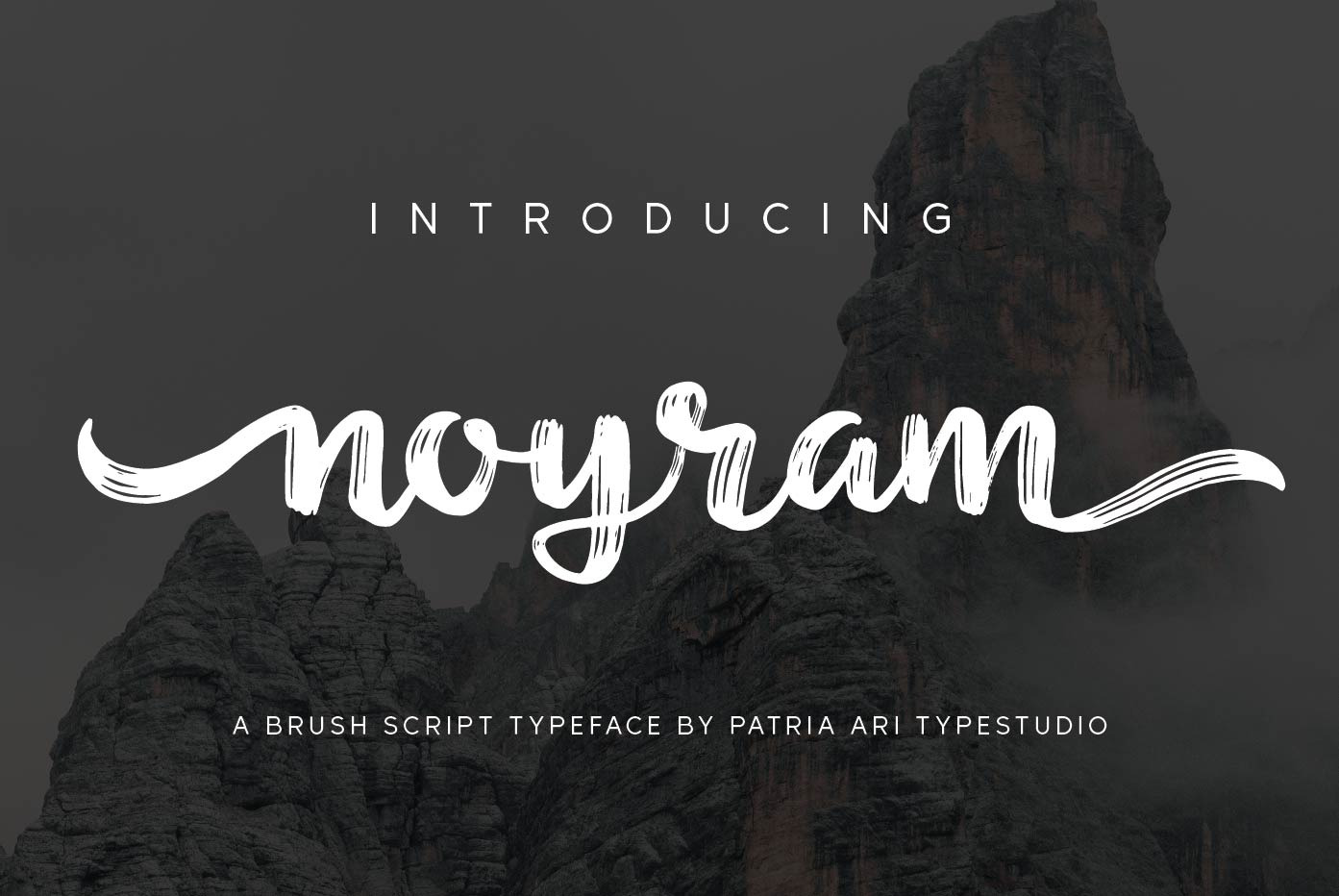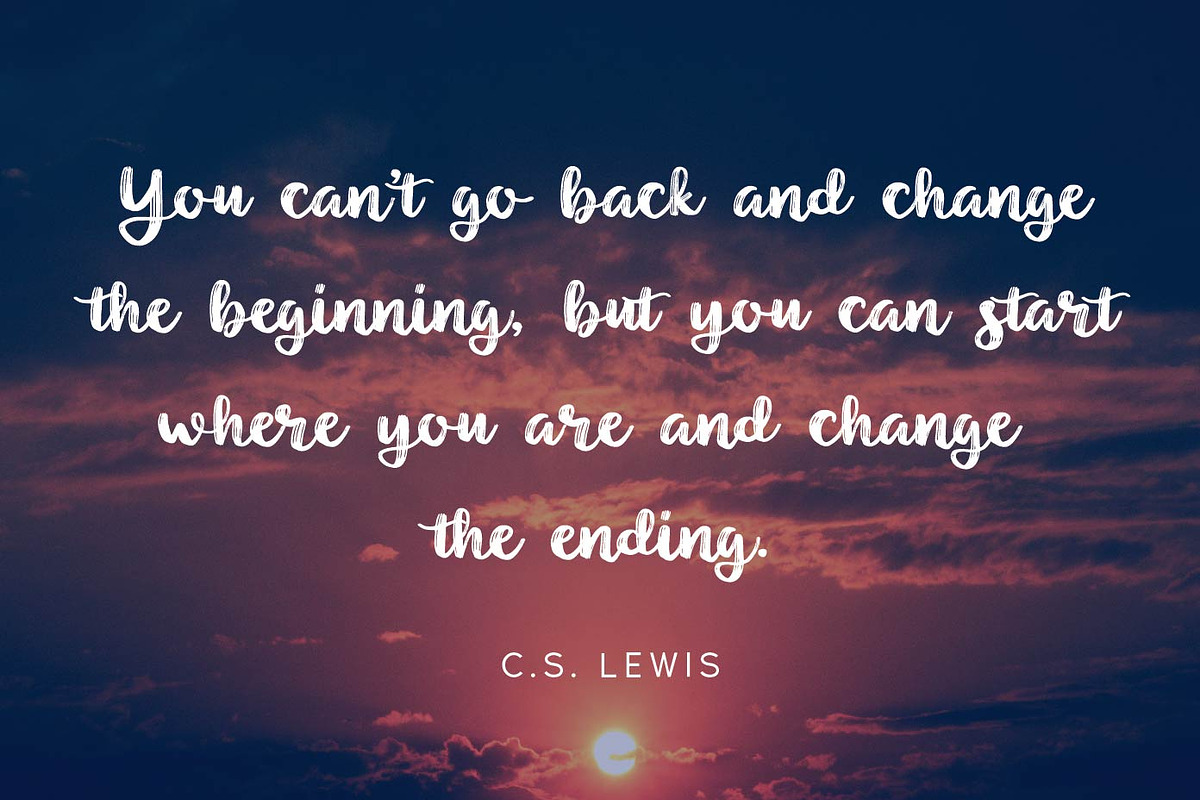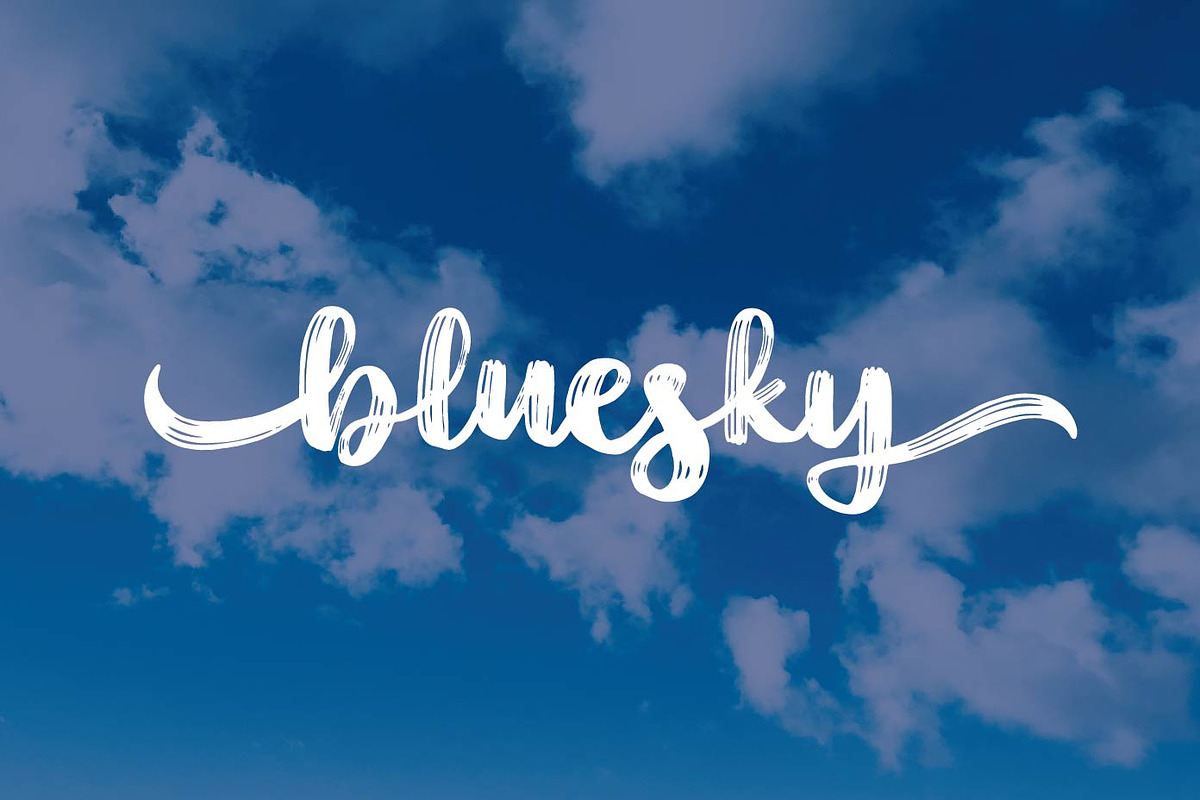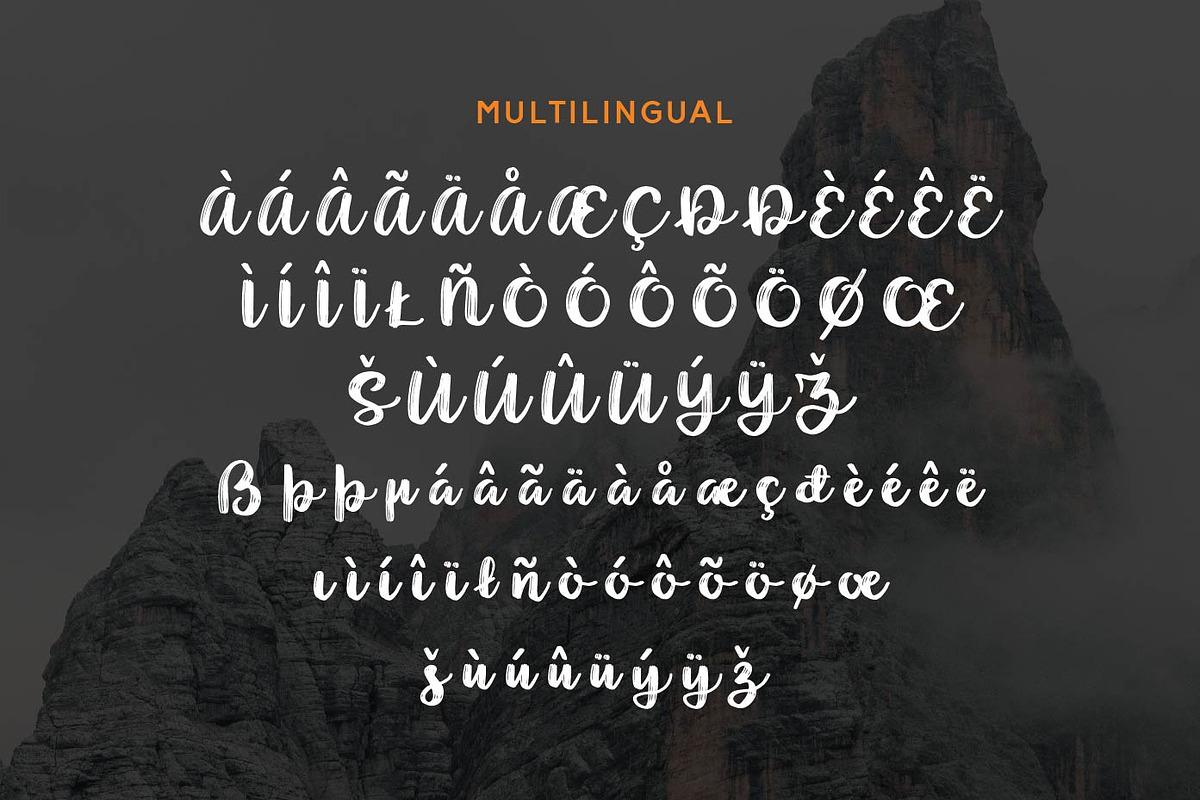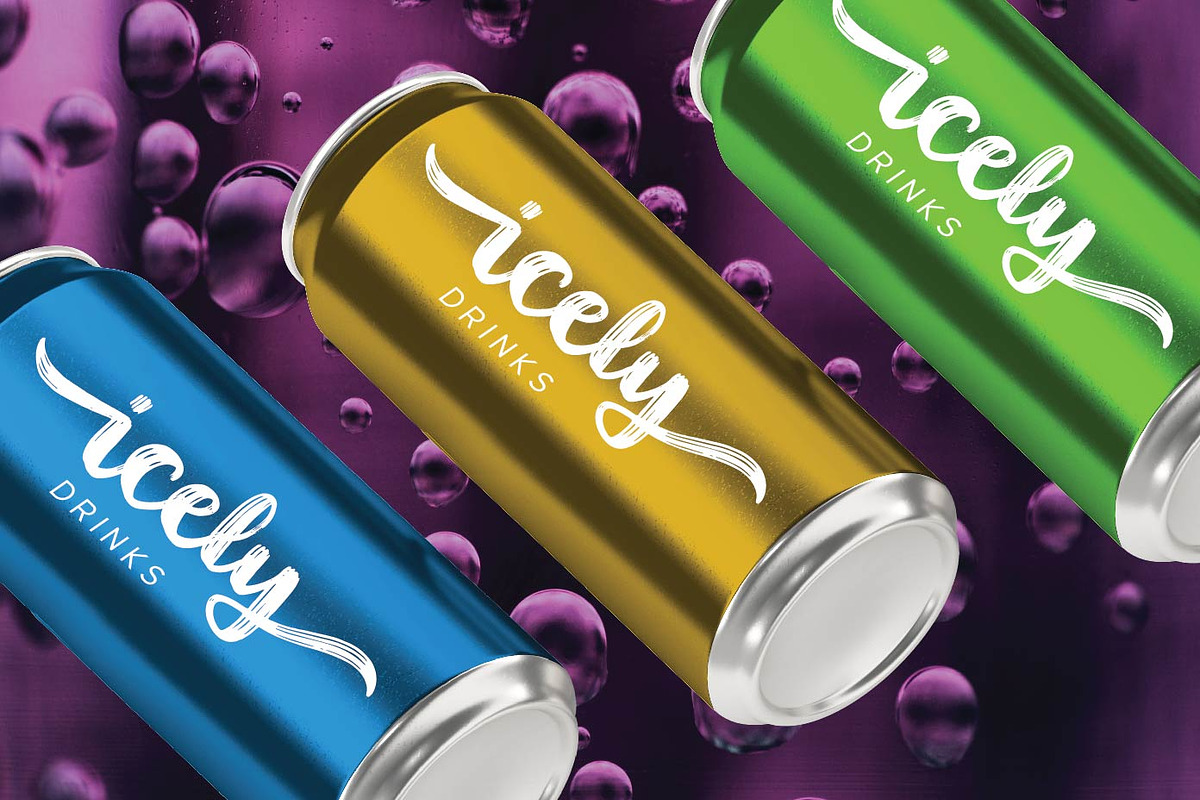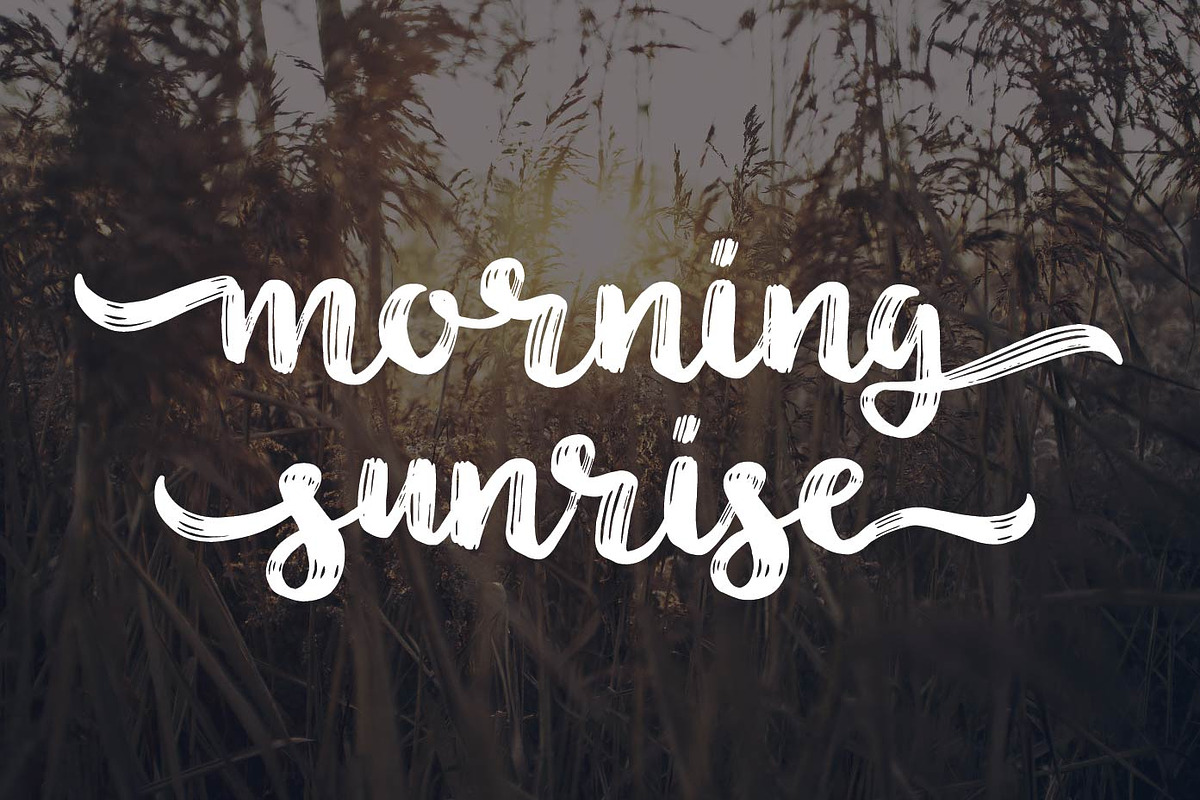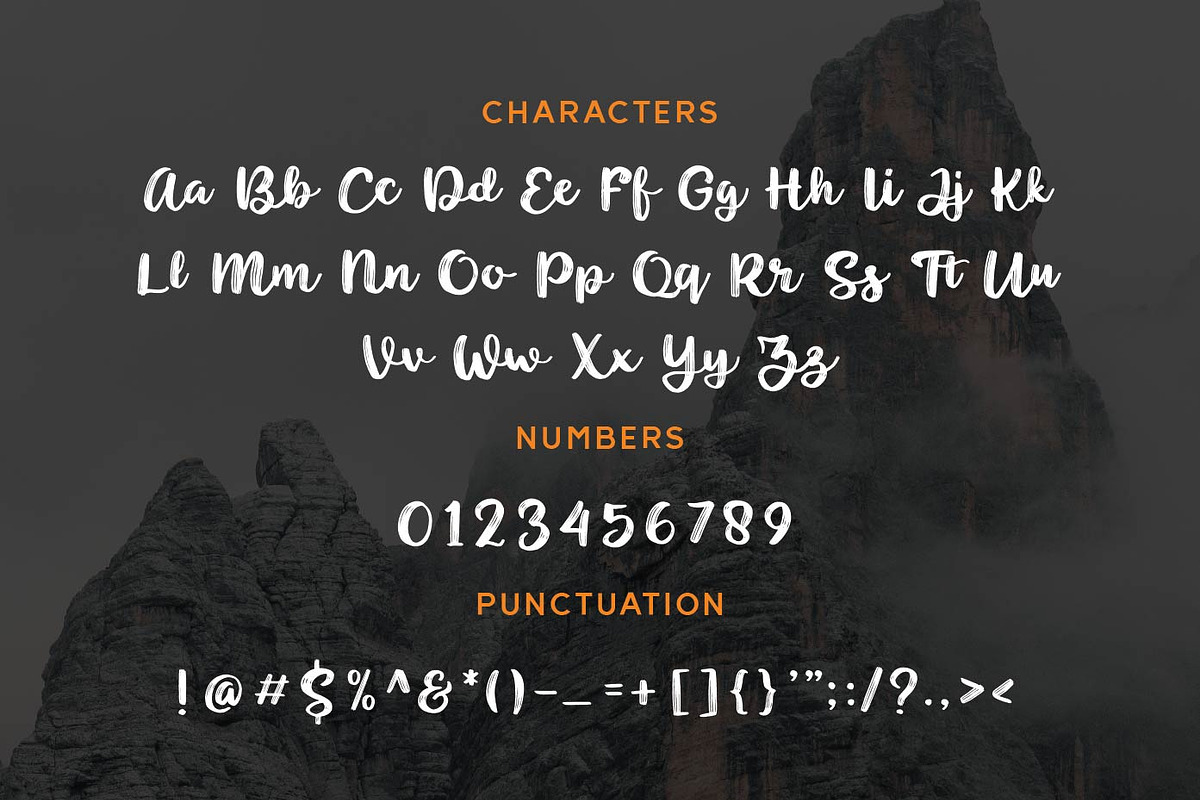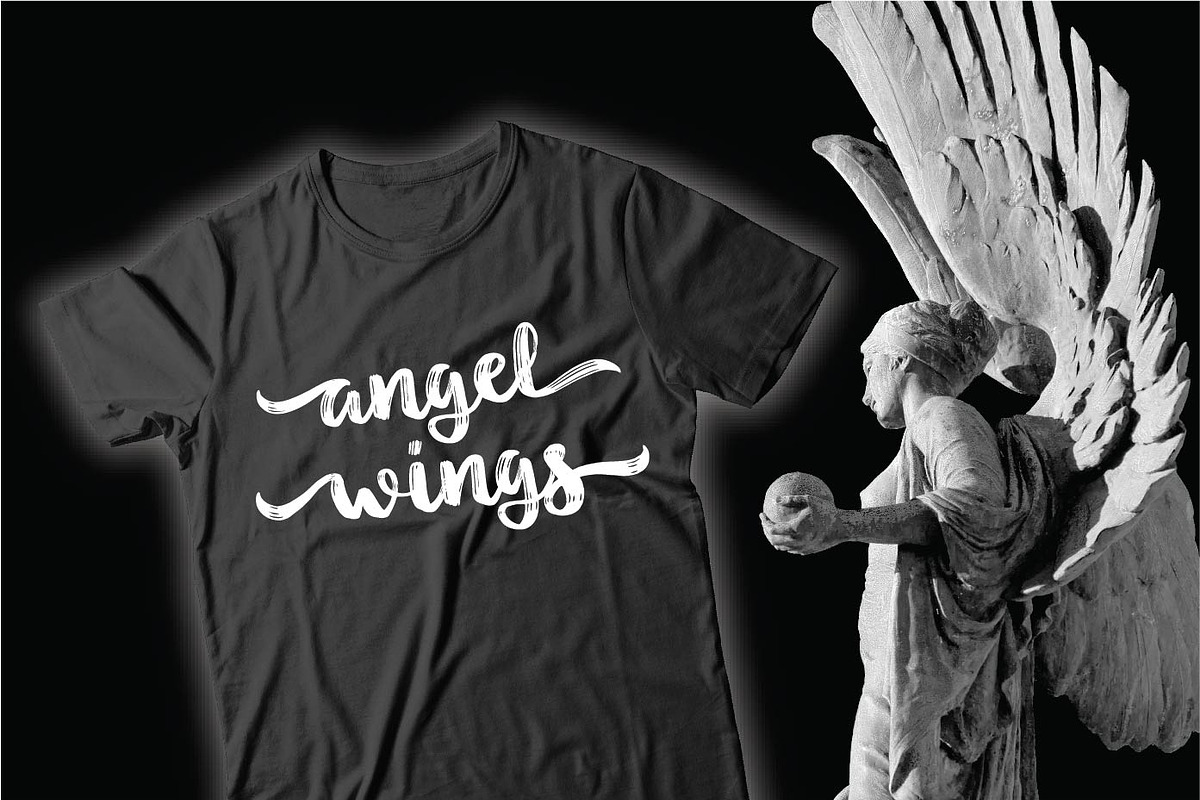
Noyram - Brush Script Fonts
Noyram is a strong brush script typeface with stunning alternate glyphs.
Noyram is perfect for branding projects, logo, social media posts, advertisements, product packaging, product designs, label, and any projects that you work on.